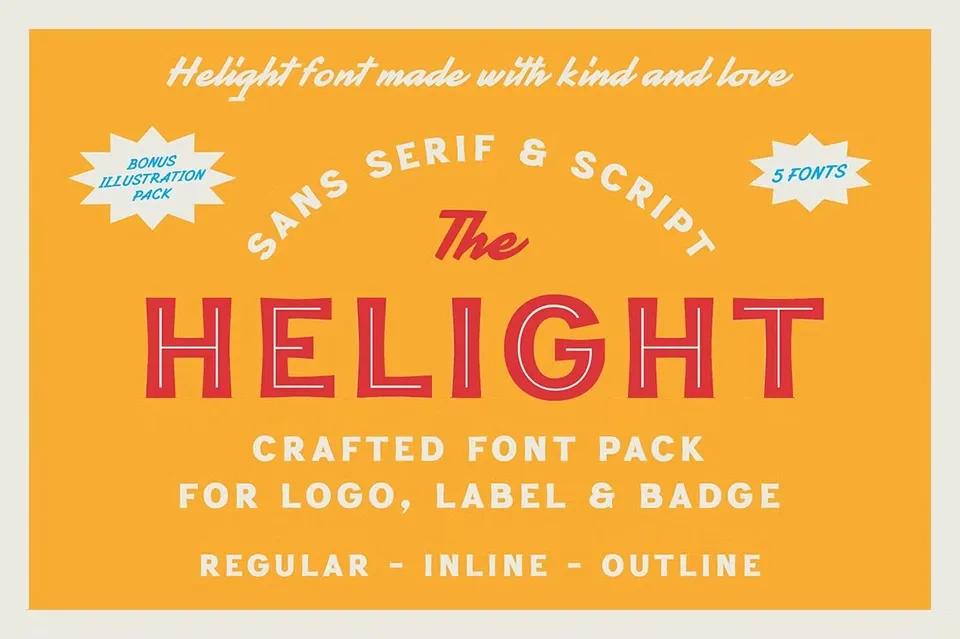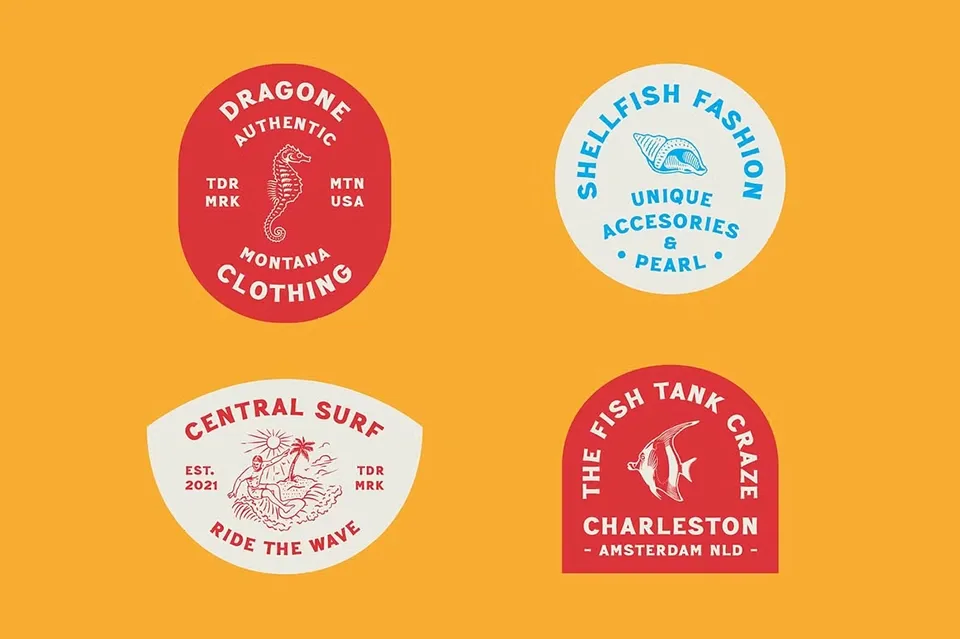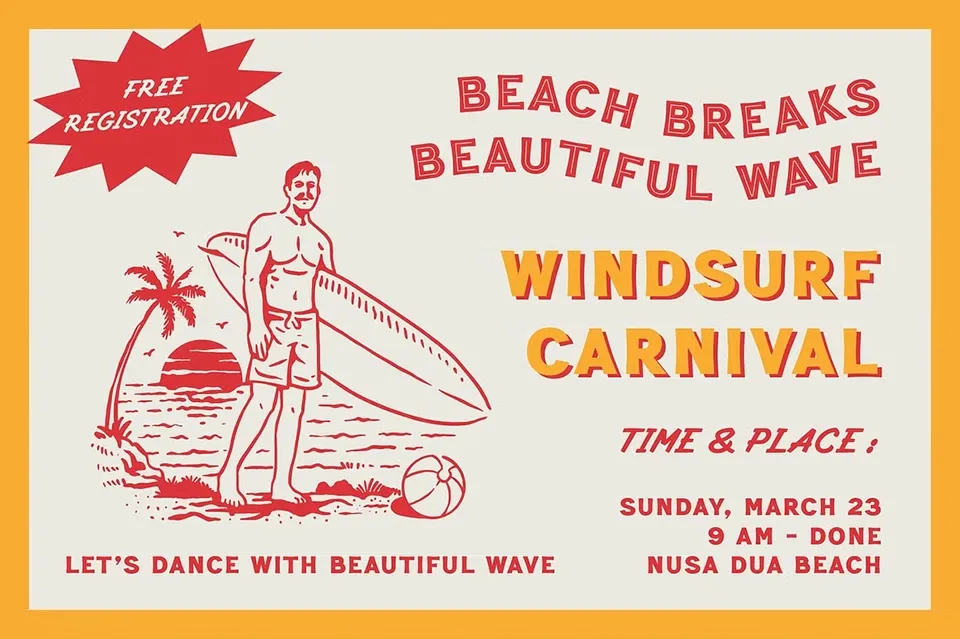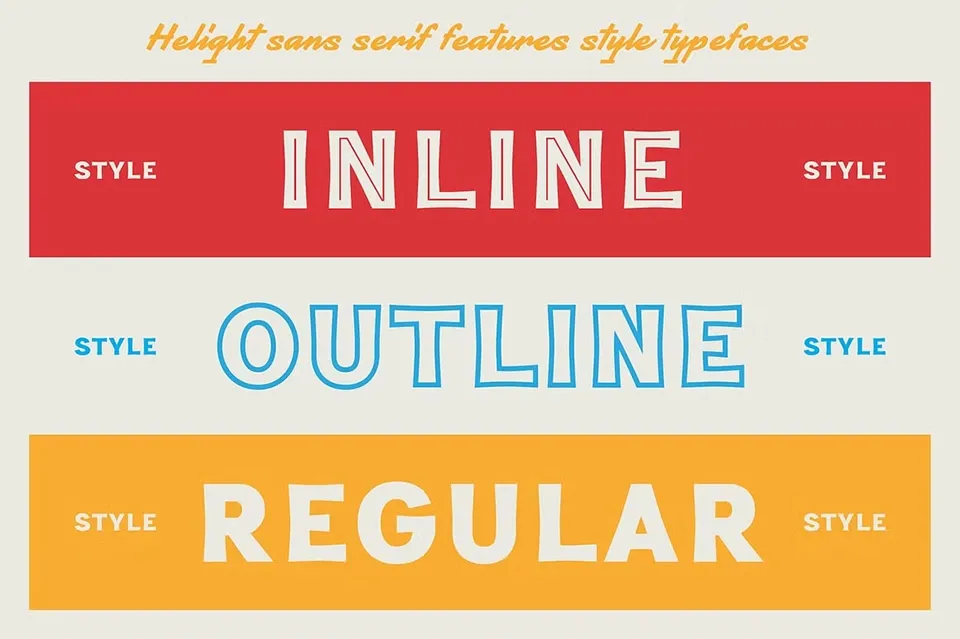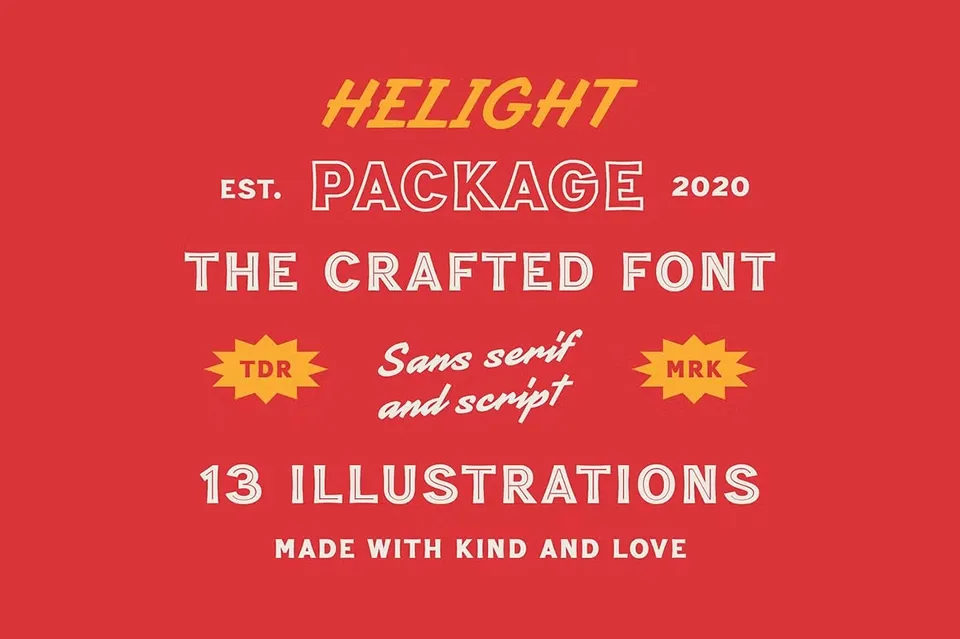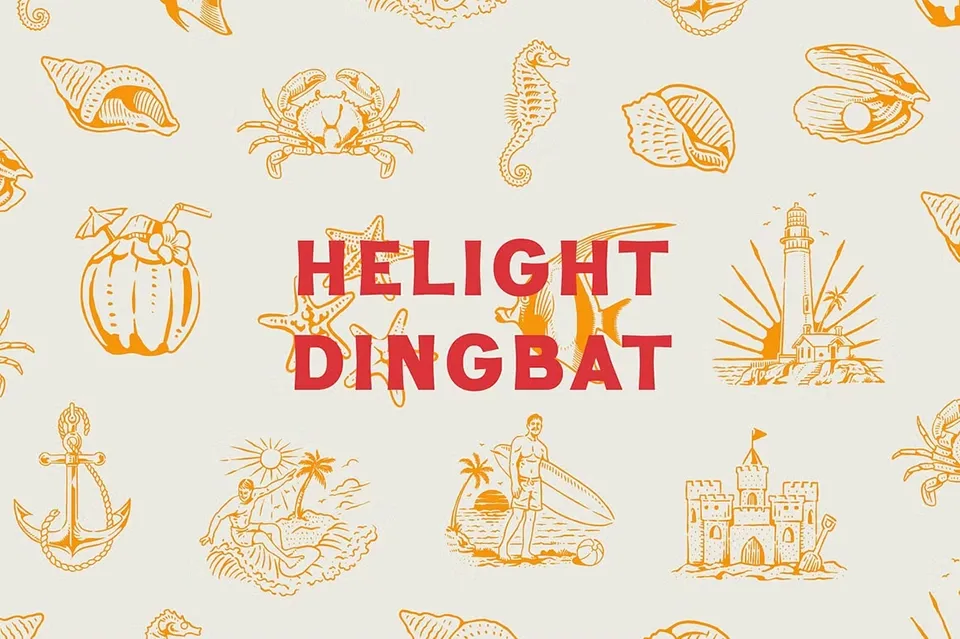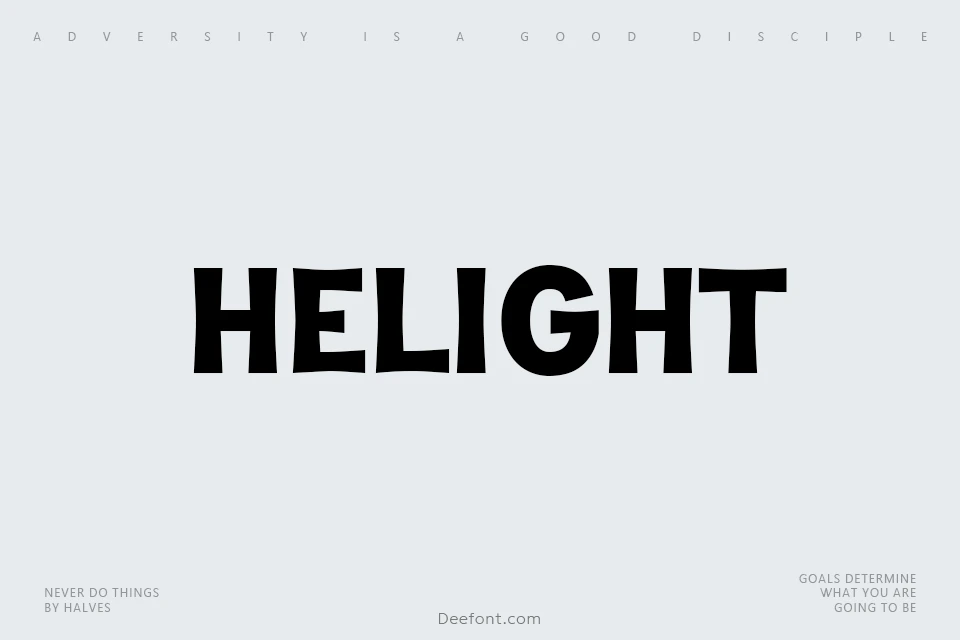
Helight Font
Helight Font is a crafted font pack designed by Edi Gunawan, featuring a unique blend of sans serif, script, and dingbat styles. This versatile collection includes five fonts-three sans serif styles (regular, inline, outline), a script with ligatures, and a dingbat font with 13 hand-drawn illustrations. Helight Font is ideal for logos, labels, badges, posters, packaging, apparel, branding, and more, offering multilingual support and PUA encoding for creative flexibility.